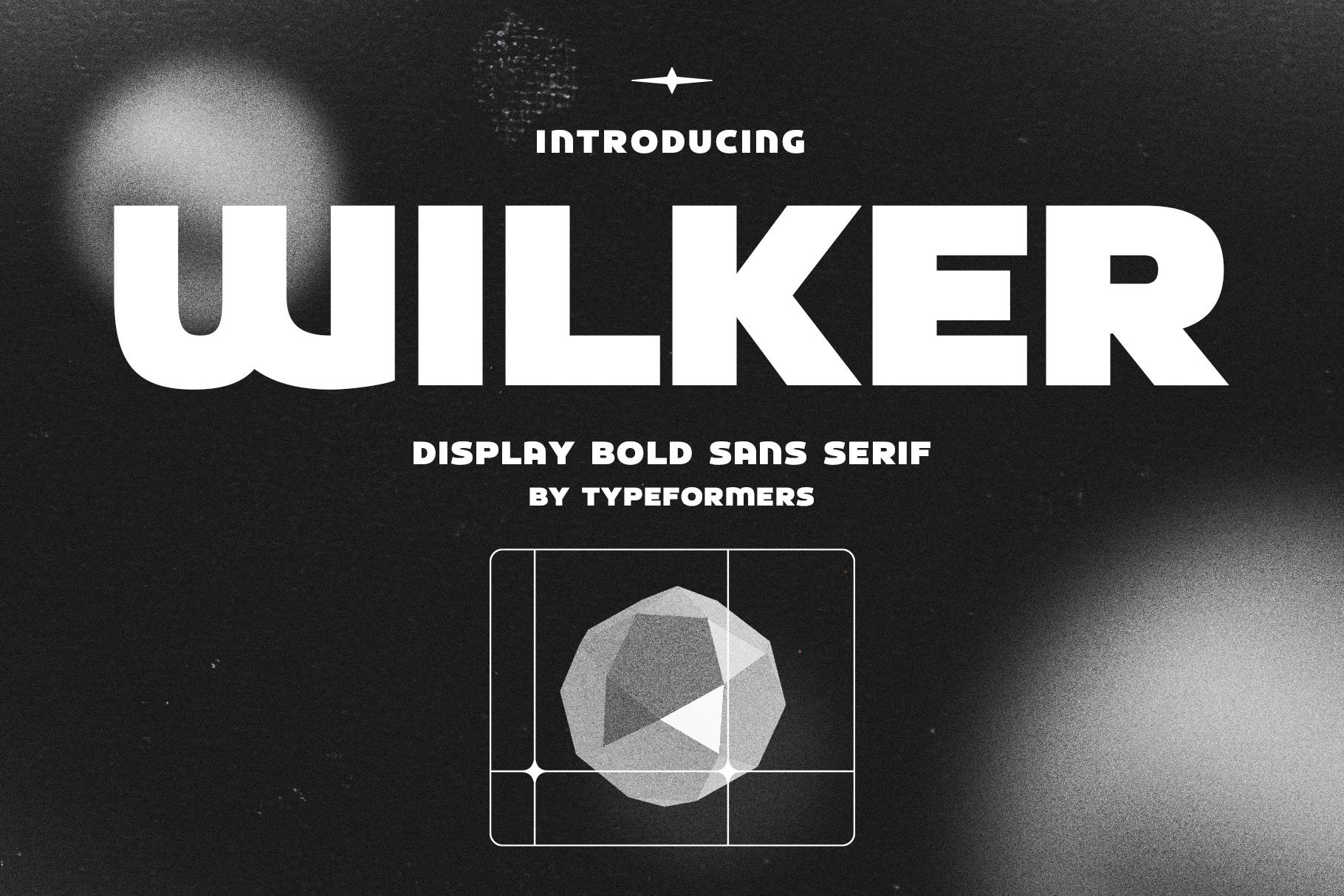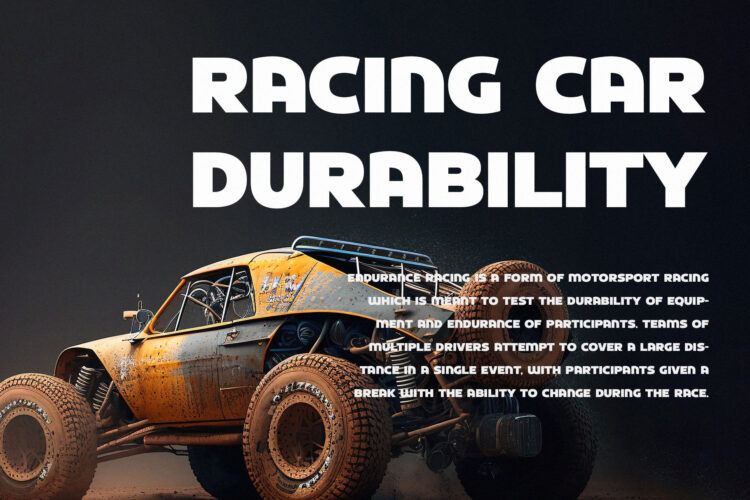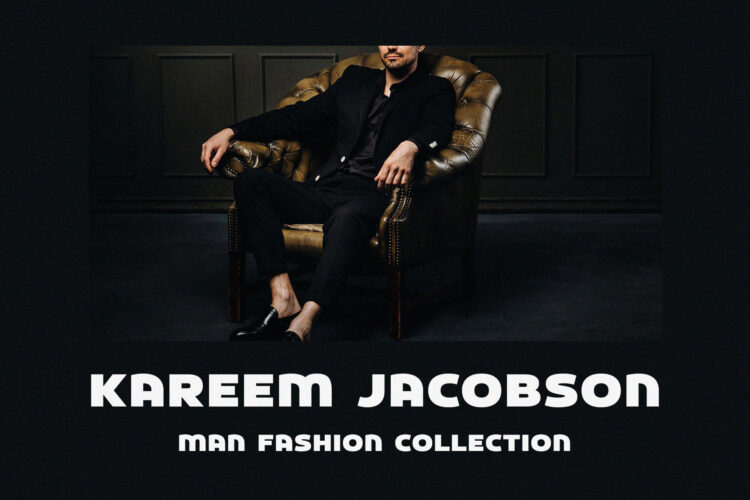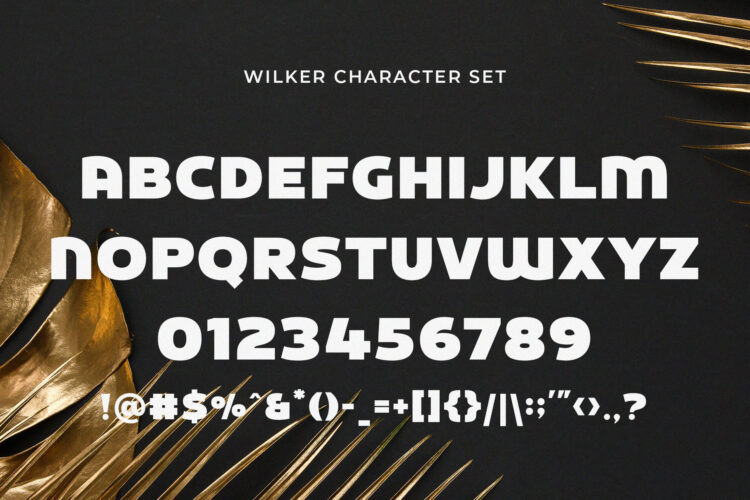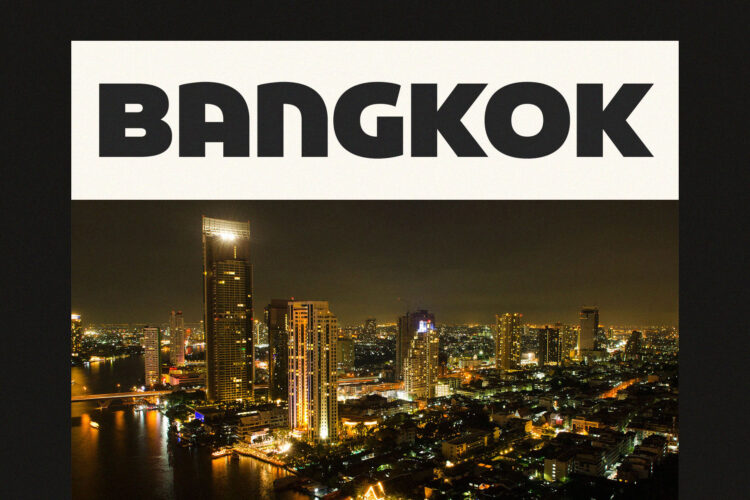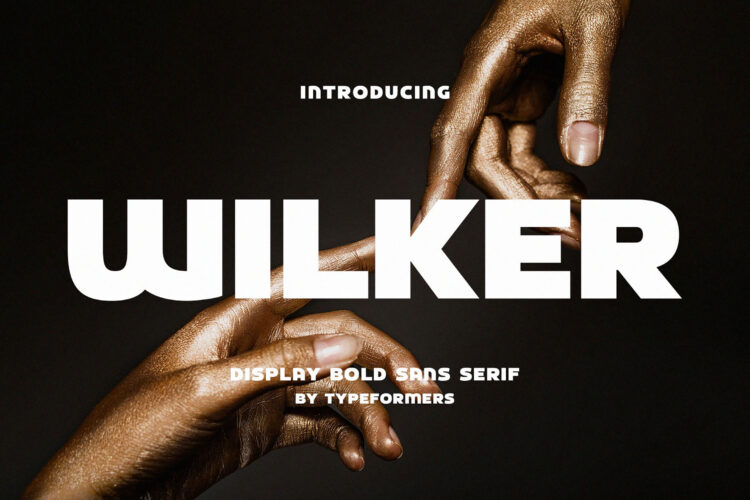
Introducing Wilker – Display Bold Sans.
Wilker is a modern and simple font, best used as a display for headings, logos, branding, magazines, product packaging and invitations.
Wilker – Display Bold Sans Serif